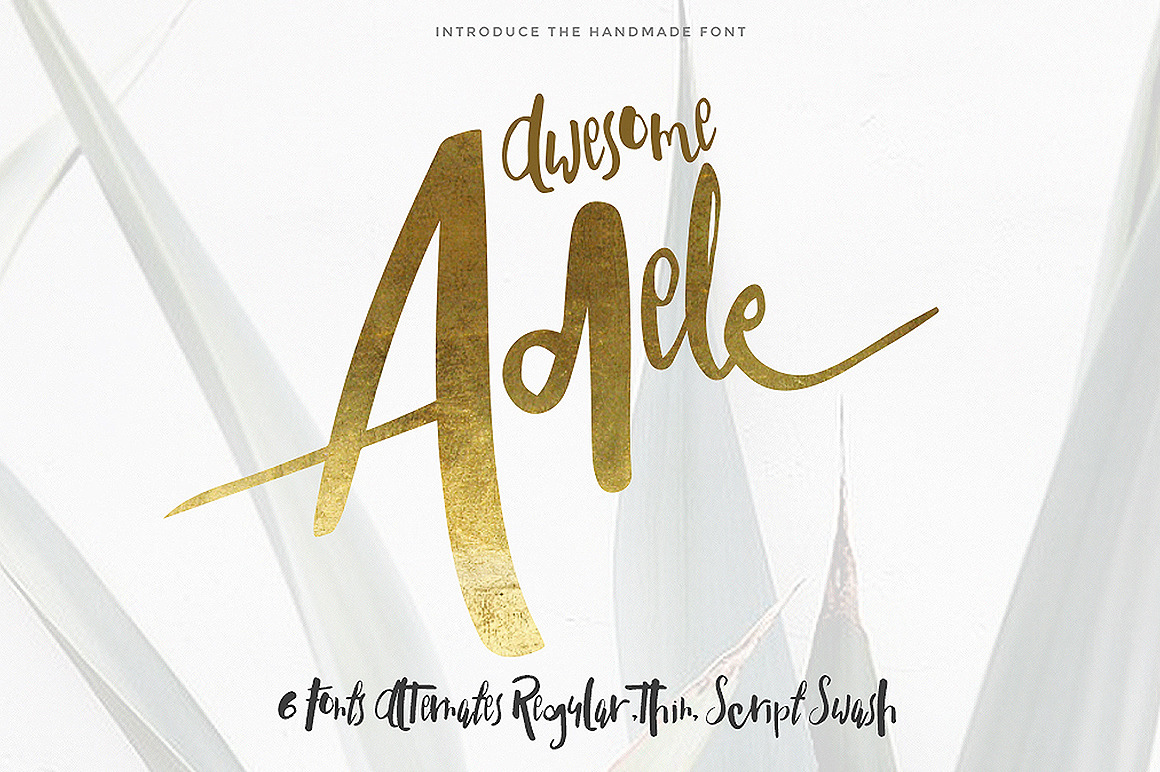
Welcome to new one, introduce with Awesome Typeface it's come with alternates, based inspired from manual doodle and practice hand drawn with pen brushes to paper could make happy to create DIY interest or related with craft action. Just added more details illustration (bonus pack) could make a wonderful art work.
- Stylishtic Alternates
- Contextual alternates
- 4 Alternates
- Multilangage support